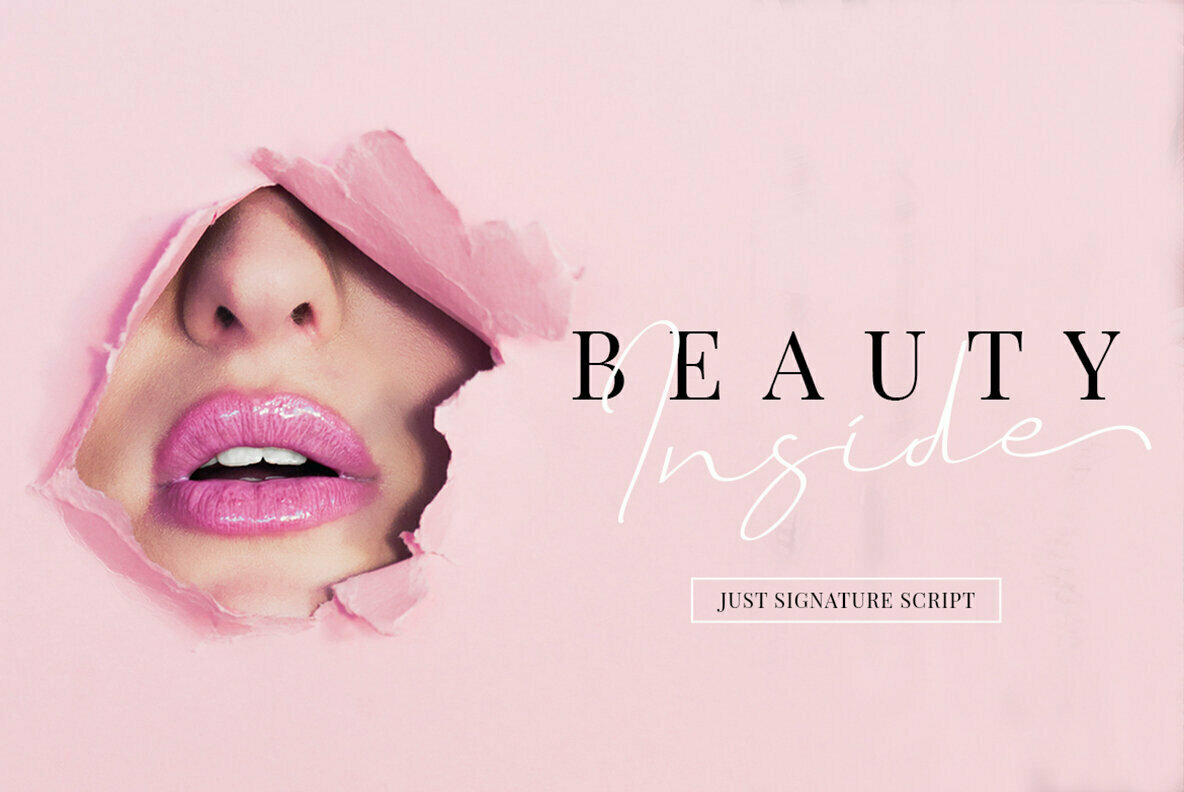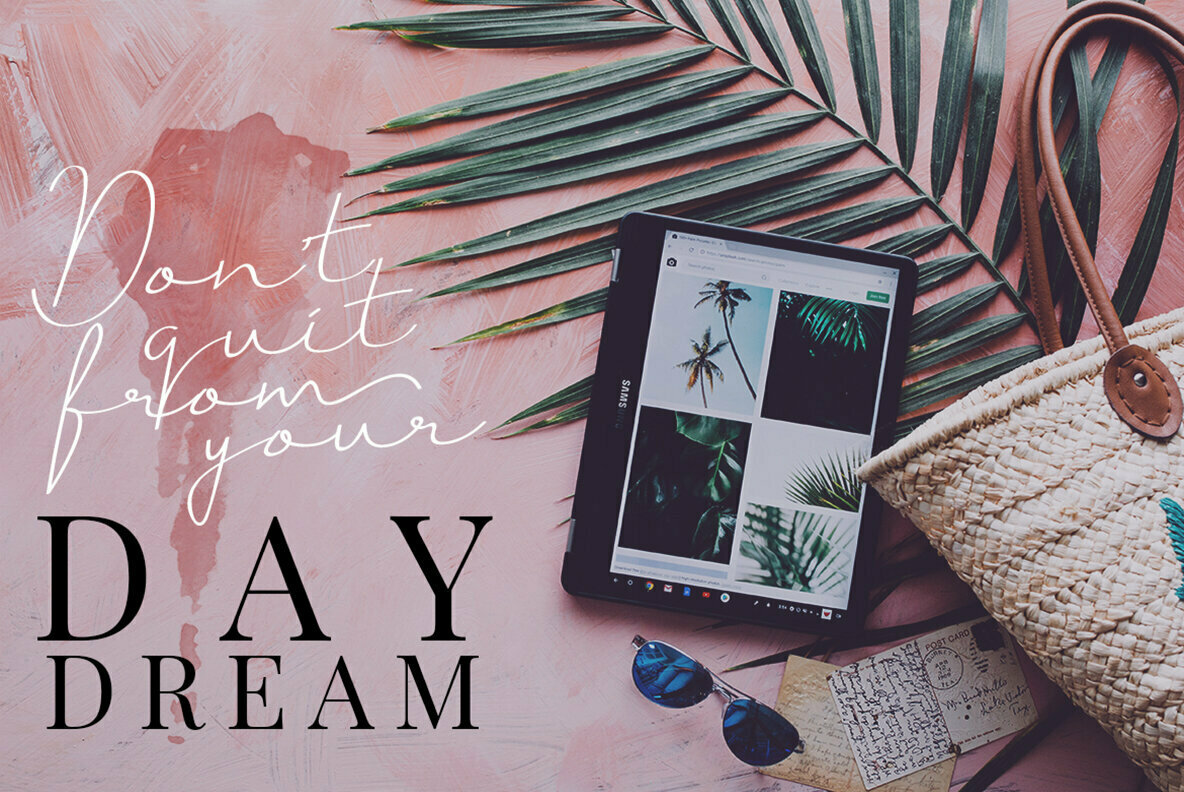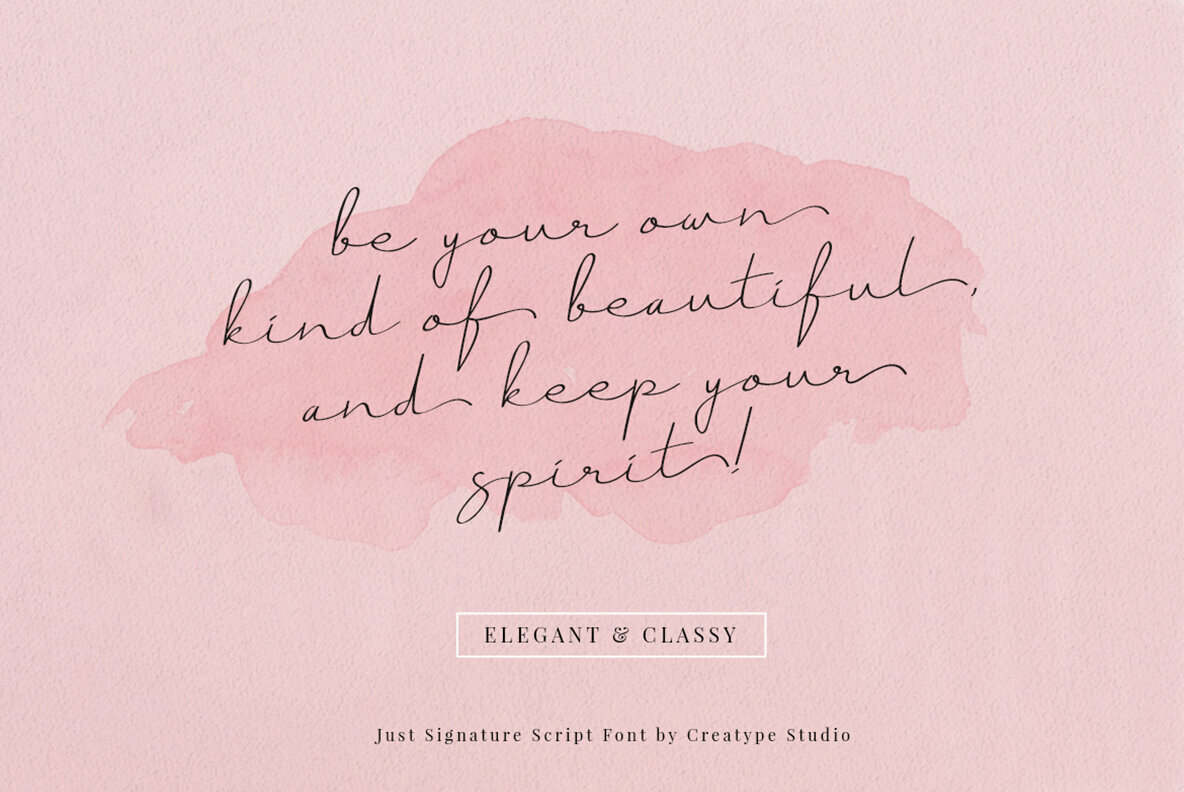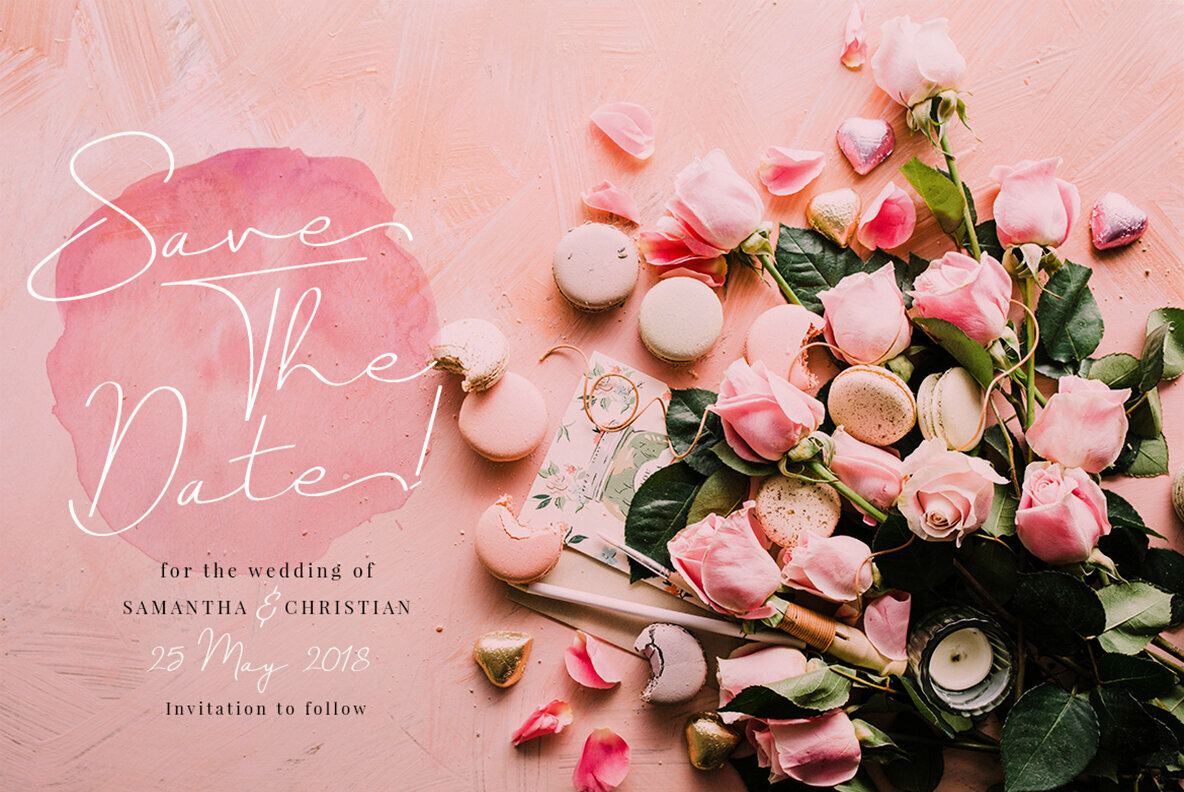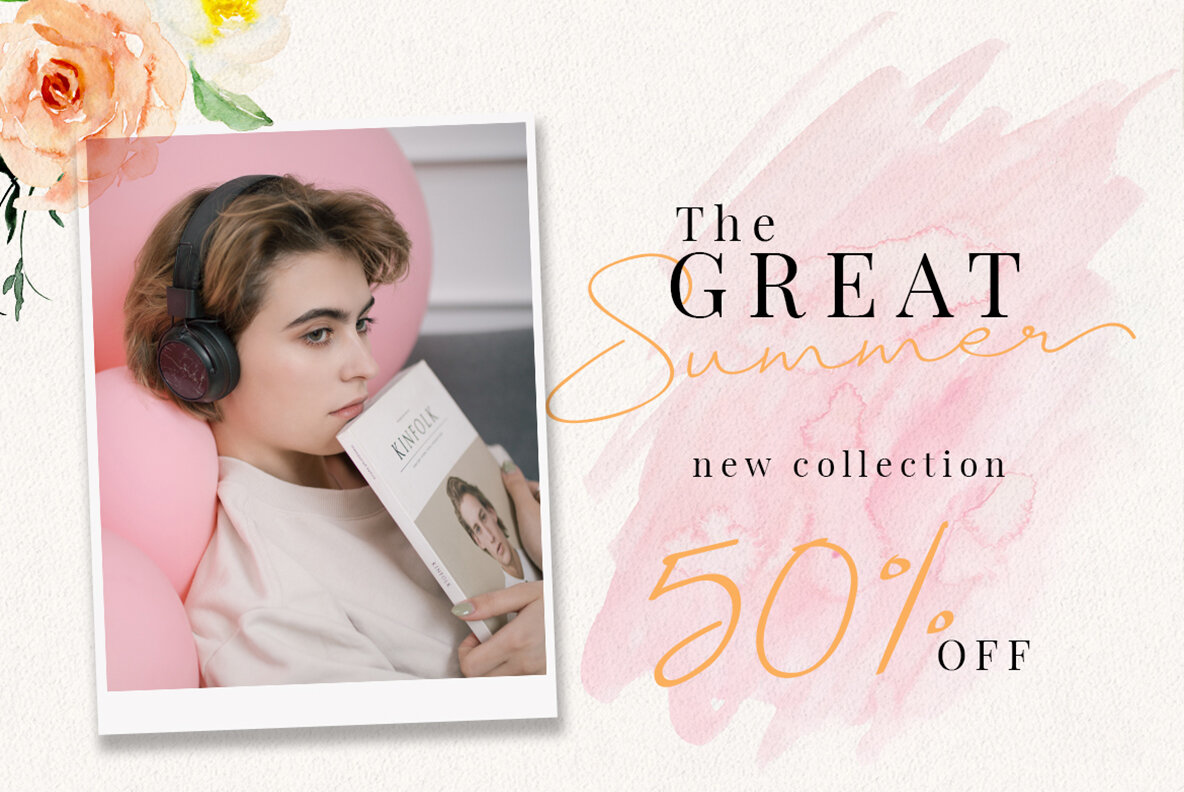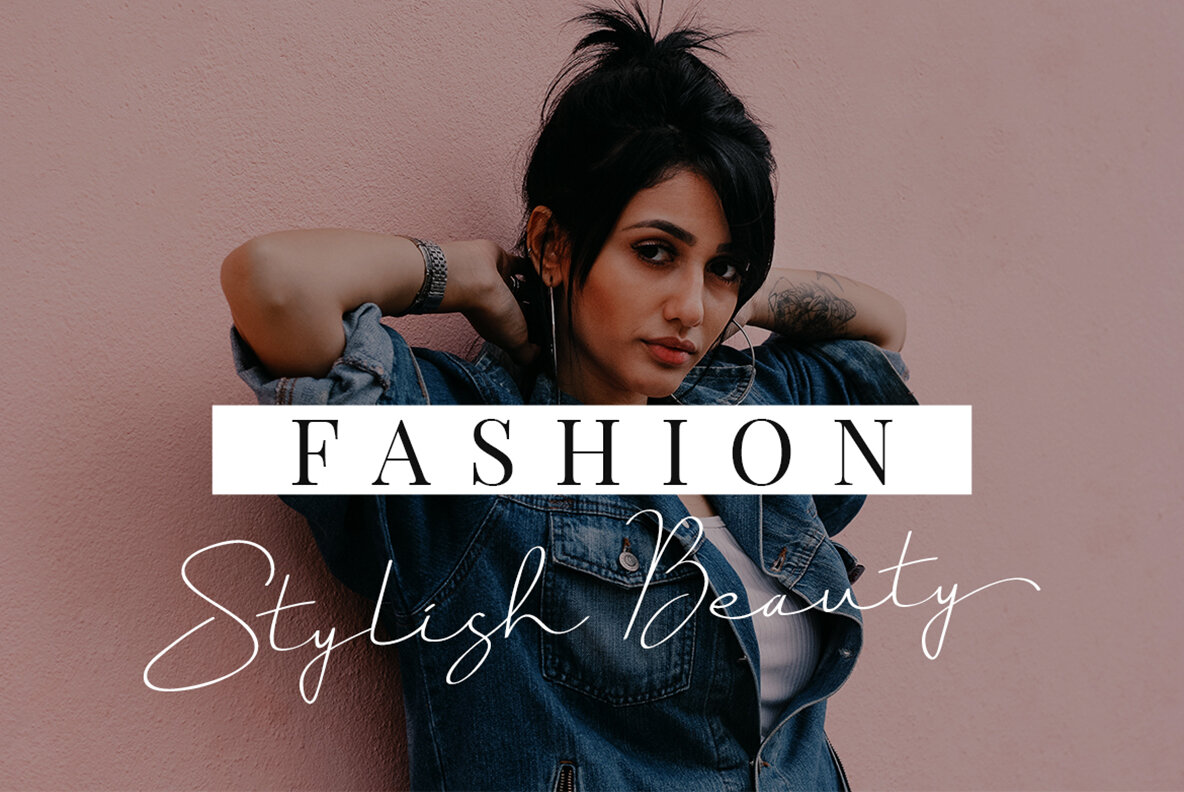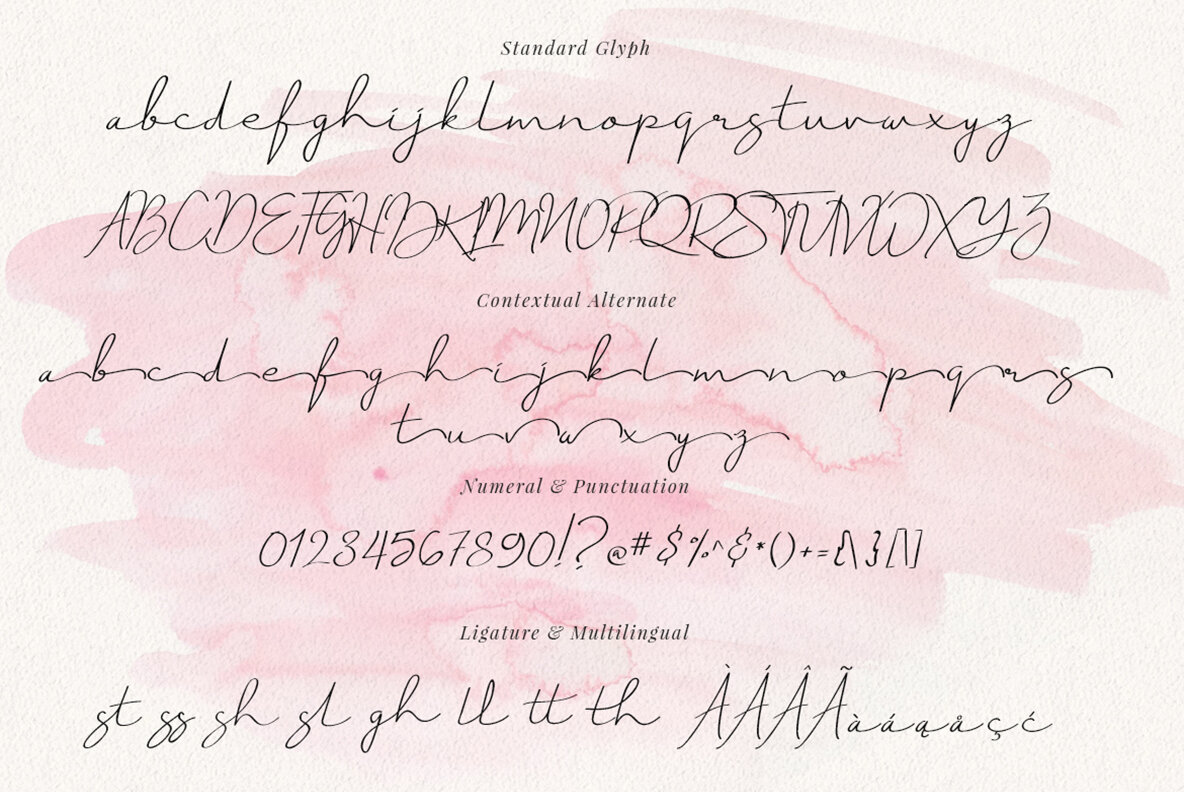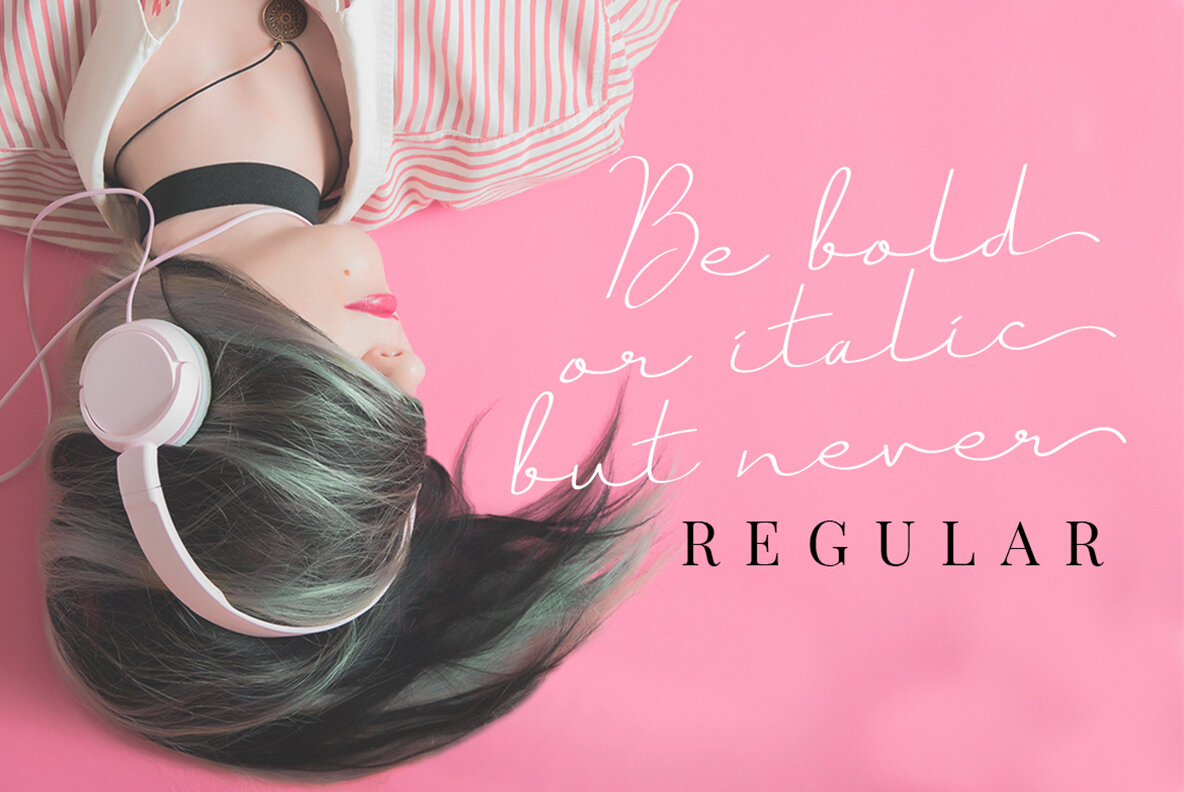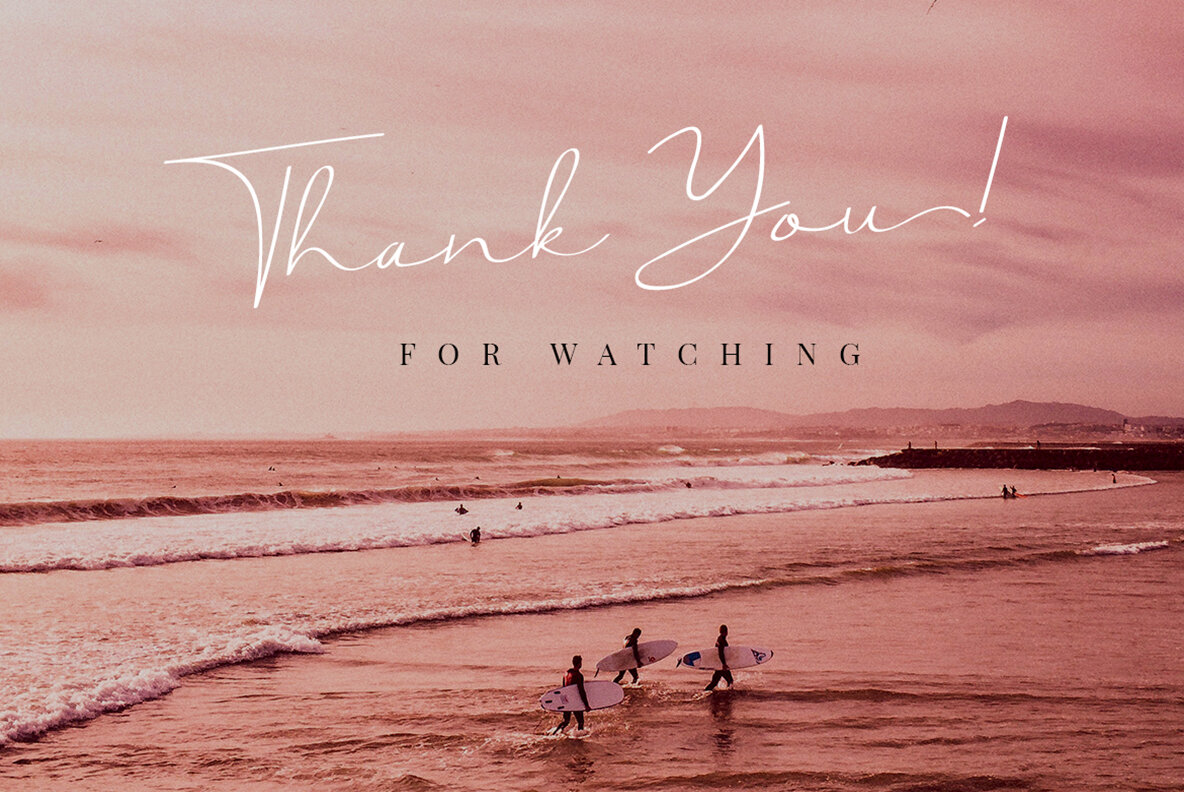
Just Signature Font
Just Signature
Just Signature Alternate
Embrace the elegance of handwriting with Just Signature, a script font that marries a natural style with modern flair. Its chic design effortlessly exudes sophistication, making it an ideal choice for projects requiring a personal touch.Just Signature: A Classy Handwritten Script Font